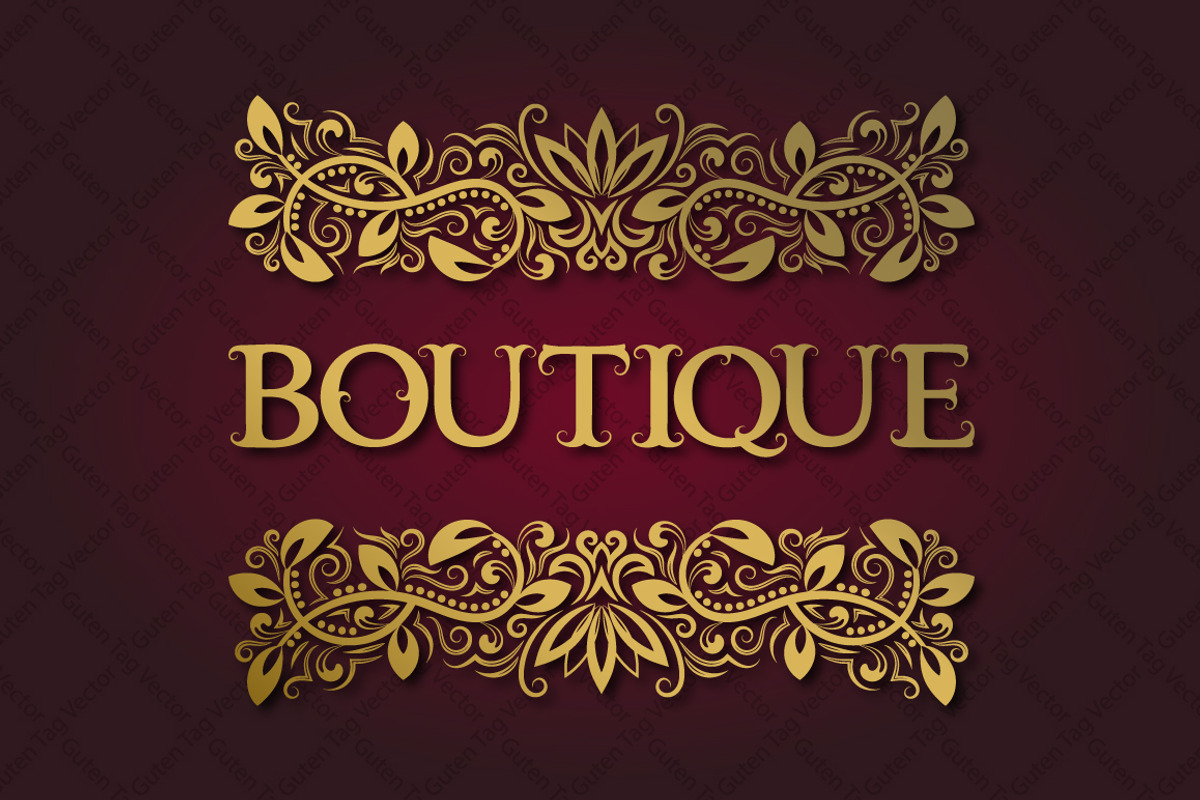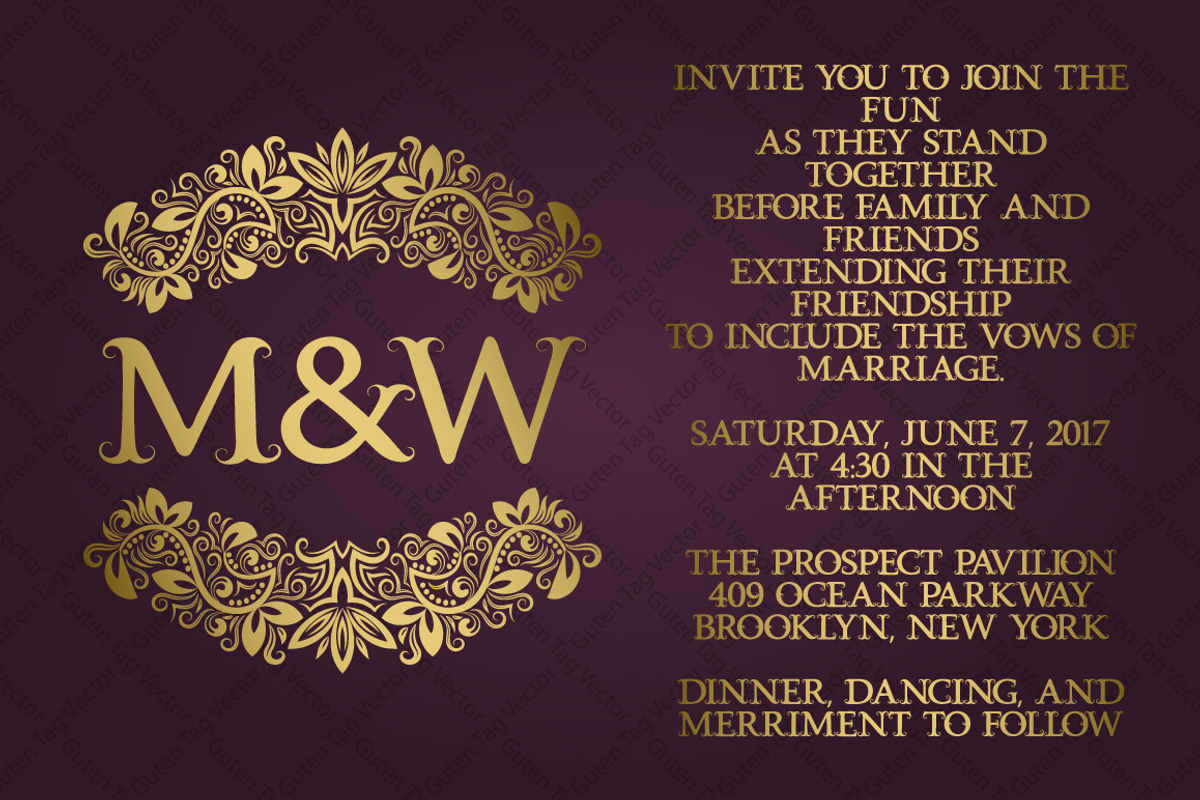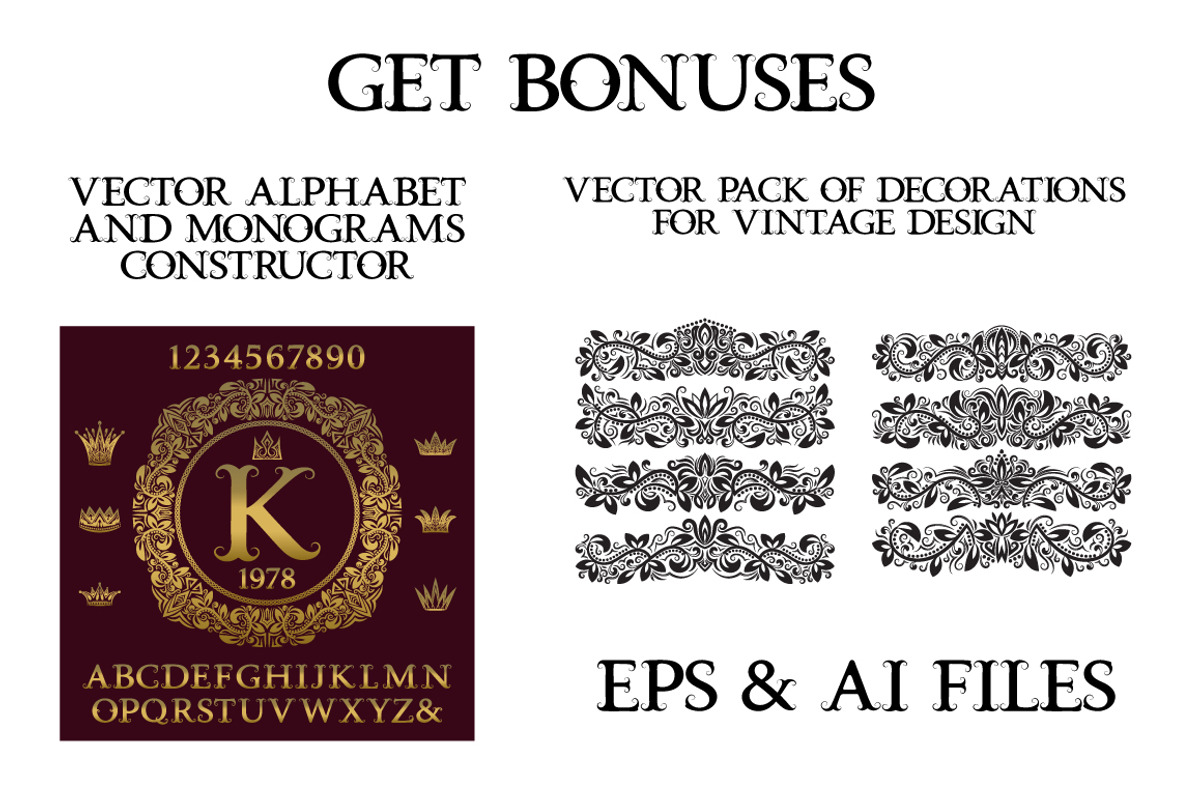
Vintage font with curls
Vintage font with curls by Guten Tag Vector is a font selected for branding, posters, packaging, typography.
Why Vintage font with curls is worth a look
Vintage font with curls by Guten Tag Vector fits naturally into Branding, posters, packaging, typography.